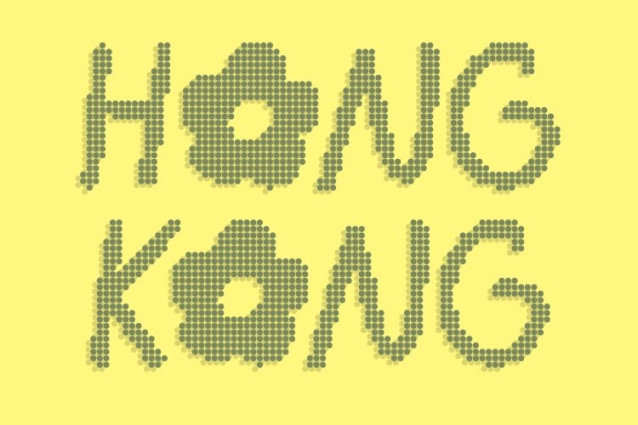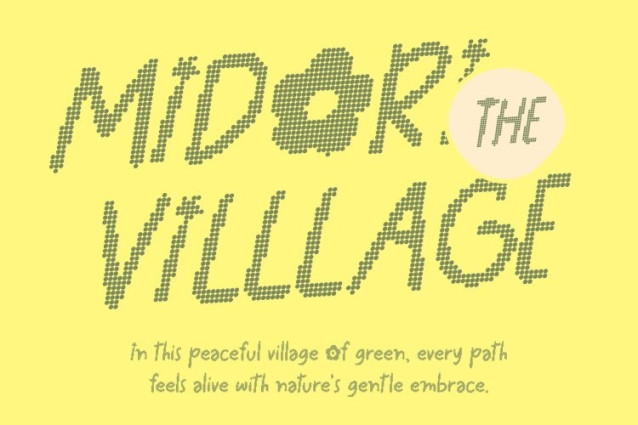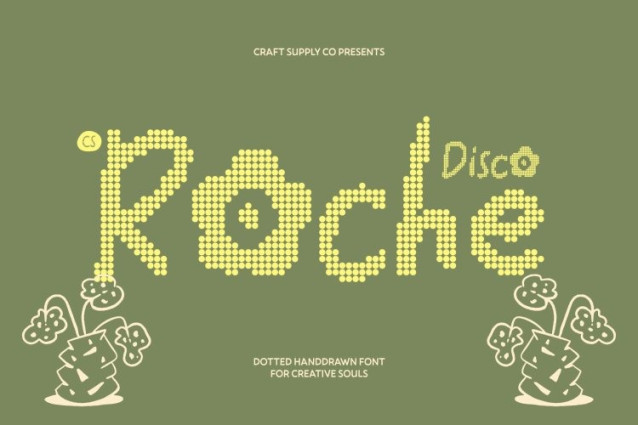
CS Roche Disco Font
CS Roche Disco Font – This transforms the lively handwritten font into a vibrant dotted display style inspired by the glowing lights and festive spirit of the disco era. Each letter is built from small circular dots, creating a playful texture that feels energetic, cheerful, and full of movement. This dotted structure enhances the friendly handwritten charm while adding a sparkling party-like atmosphere.
Natural Flow with Rhythmic Dot Patterns
The organic flow of the handwritten letterforms remains at the heart of the design, preserving the casual and expressive character of the original font. The dotted construction introduces a rhythmic visual effect, reminiscent of glowing dance-floor lights or festive decorations, making every word feel lively and dynamic.
Floral Inspiration with Playful Party Vibes
Inspired by the soft shapes and natural beauty of flowers, this dotted version brings a fresh and joyful personality to the typography. The circular dots echo the gentle forms of petals and blossoms, while the disco-inspired style adds brightness and celebration, creating a unique fusion of nature-inspired charm and party energy.
Perfect for Creative, Fun, and Cheerful Designs
This font works beautifully in posters, packaging, playful branding, social media graphics, children’s projects, and event visuals. Its cheerful dotted texture and expressive handwritten flow make it ideal for designs that aim to feel friendly, vibrant, and full of personality.